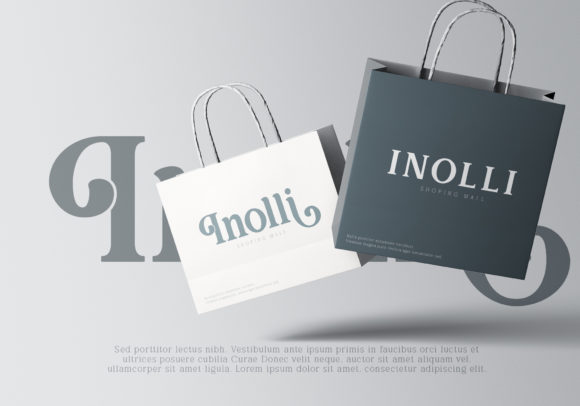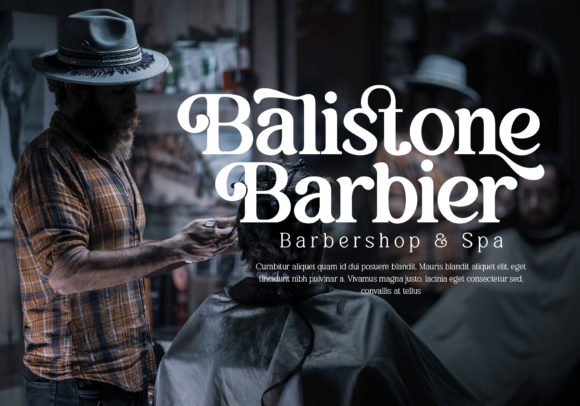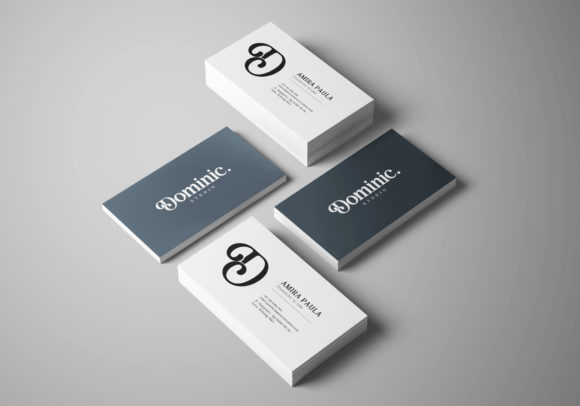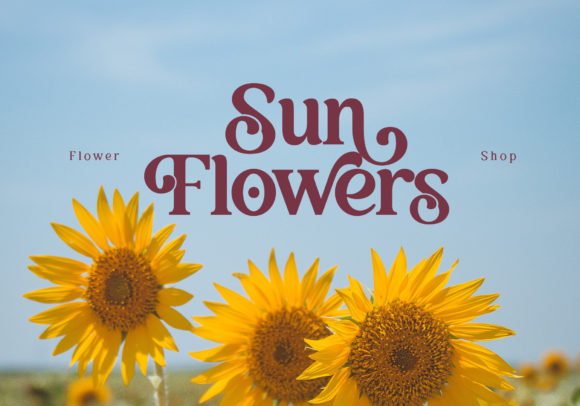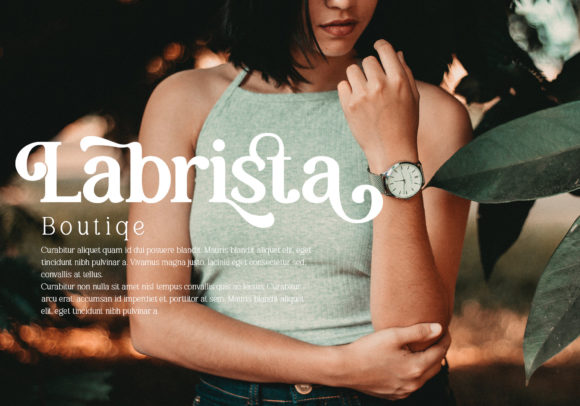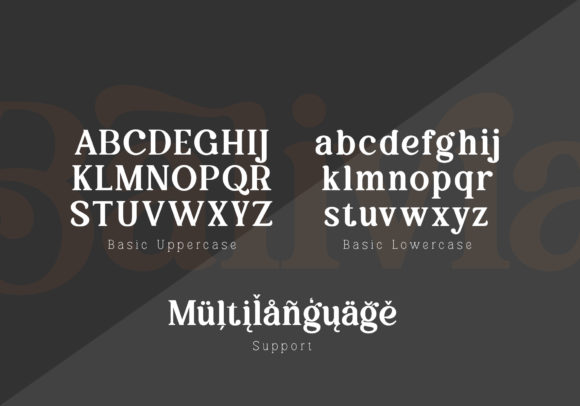
Introduction to Balivia Font
Do you remember the moment when your creative project finally comes together? The excitement of seeing your ideas transform into a stunning visual representation is like no other. It’s a feeling that’s hard to describe, but it’s a mix of pride, satisfaction, and a hint of wonder. For designers, this moment is all too familiar, and it’s exactly what makes our job so rewarding.
One of the key elements that can elevate your design to the next level is the right font. That’s where the Balivia Font comes in – a bold yet elegant serif font that’s sure to leave a lasting impression. With its high-quality design and transparent background, this font is a valuable resource for any designer looking to add a touch of sophistication to their work.
Whether you’re working on a branding project, a poster, or a website, the Balivia Font is sure to be a great addition to your design toolkit. And the best part? It’s available for free download, making it an accessible resource for designers of all levels.
Key Features of Balivia Font
- High-quality design with a unique and creative style, perfect for various projects.
- Features a transparent background, providing flexibility for designers to create custom backgrounds and compositions.
- Comes in a single size, making it easy to use across various design applications and creative projects.
- Designed with a high resolution, ensuring crisp and clear text rendering, even at larger font sizes.
- Perfect for use in logos, branding materials, and other design elements that require a high level of creativity and sophistication.
Honest Review: Balivia Font
As a designer, I’m always on the lookout for high-quality design resources to elevate my creative projects. Recently, I had the chance to try out the Balivia Font, and here’s my honest review.
- ✨ Elegant and modern design aesthetic: The Balivia Font has a unique and sophisticated look that’s perfect for modern creative projects.
- ✨ High-quality glyphs: The font includes a wide range of glyphs, including Latin, Cyrillic, and Greek scripts, making it a versatile choice for designers.
- ✨ Transparent background: This feature makes it easy to use the font on any background without worrying about color clashes.
- ⚠️ Limited font weight options: While the font has a modern look, it’s limited to a few font weights, which may not be suitable for all design projects.
- ⚠️ Not ideal for body text: Due to its elegant design, the Balivia Font may not be the best choice for body text, as it can be difficult to read in long paragraphs.
Overall, I think the Balivia Font is a great addition to any designer’s toolkit, but it’s essential to use it judiciously and understand its limitations. If you’re looking for a high-quality font for a specific design project, I’d recommend giving it a try. And, as a bonus, it’s available for free download, making it an excellent value for designers on a budget.
How to Use Balivia Font
Tips for Getting the Most Out of Balivia Font
For the best results, use the Balivia Font with a transparent background. This will allow the font to stand out and provide a high-quality look to your design. Additionally, experiment with different font sizes and styles to add visual interest to your project.
The Balivia Font is ideal for use in a variety of creative projects, including logos, brochures, and social media graphics. Its high-quality design and transparent background make it a versatile and effective design resource.
Alternatives to Balivia Font
Montserrat is a modern sans-serif font ideal for creative projects that require high-quality typography. It’s available for free download and is a great design resource for any project. Montserrat is suitable for use in digital and print materials, including logos, headings, and body text. When compared to Balivia Font, Montserrat has a more geometric and urban feel, making it perfect for modern and minimalist designs.
Lato is a clean and elegant sans-serif font that’s perfect for any design project requiring a high-quality, transparent background. It’s available for free download and is a popular design resource among designers. Lato is suitable for use in digital and print materials, including logos, headings, and body text. When compared to Balivia Font, Lato has a more refined and sophisticated feel, making it perfect for luxury and corporate designs.
Q: Is the Balivia Font a high-quality design resource?
Yes, the Balivia Font is designed to be a high-quality design resource. It features a unique and elegant design, making it suitable for a wide range of creative projects, from branding and advertising to editorial and digital design. The font is carefully crafted to ensure optimal legibility and readability.